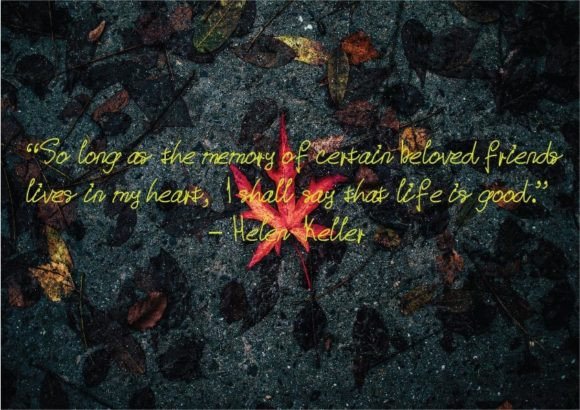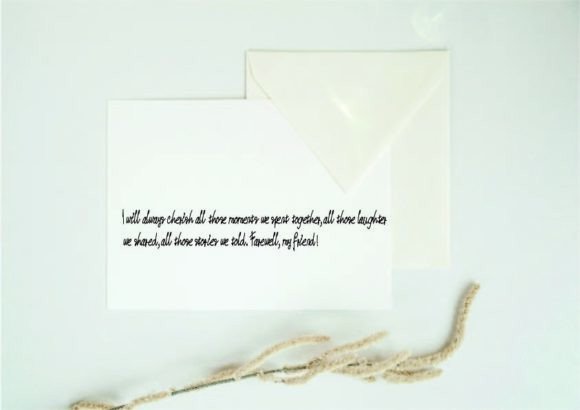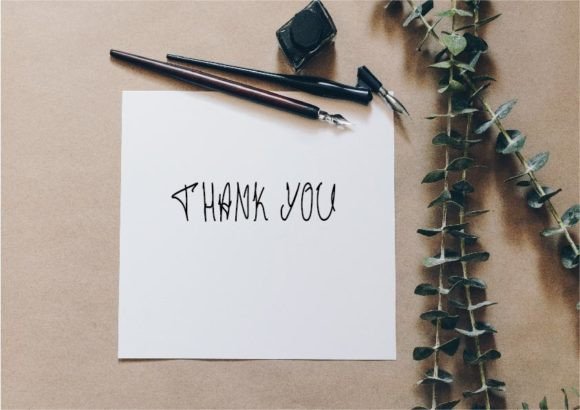
Adding Whimsy to Your Designs with Ambhoerhadhoel Font
Have you ever stared at a blank canvas, feeling stuck and uninspired? We’ve all been there – the creative block that threatens to derail our artistic momentum. But then, something magical happens. A spark of inspiration ignites, and the ideas start flowing. For designers, this moment is a thrill unlike any other.
Enter Ambhoerhadhoel Font, a quirky and fun handwritten font that’s guaranteed to add a dash of whimsy to your crafty ideas. With its playful, handwritten feel, Ambhoerhadhoel Font is the perfect tool for designers looking to inject some personality into their work. Whether you’re creating a brand identity, designing a wedding invitation, or crafting a social media post, Ambhoerhadhoel Font is the perfect addition to your creative toolkit.
Ambhoerhadhoel Font Key Features
- Font Family: Ambhoerhadhoel is a sans-serif font family, ideal for use in digital and print media.
- Size: The font family includes a range of font sizes, from 8pt to 72pt, with a comprehensive set of weights and styles.
- Resolution: Ambhoerhadhoel font family is optimized for use at high resolutions, making it suitable for use in digital displays and high-quality print materials.
- Unique Characteristics: The font family features a unique blend of modern and vintage elements, with distinctive letterforms and a subtle texture that adds depth and visual interest.
- Language Support: Ambhoerhadhoel font family supports a wide range of languages, including Latin, Cyrillic, and Greek scripts.
Ambhoerhadhoel Font Review
At first glance, the Ambhoerhadhoel Font seems like a fascinating and unique addition to any design project. I have to admit, I was immediately drawn to its ✨ eclectic, avant-garde style. The font’s bold and quirky characteristics make it perfect for creative projects that need a touch of edginess.
Here are some aspects that I particularly appreciate:
- ✨ The font’s versatility in handling a wide range of text sizes and styles.
- ✨ The unique letterforms that add a touch of sophistication and elegance.
- ✨ The excellent legibility, even at smaller font sizes.
- ⚠️ The font may not be suitable for formal or conservative designs, as it can come across as too bold or attention-seeking.
- ⚠️ The font’s irregularities can make it challenging to use in complex layouts or when precise alignment is required.
Overall, I think the Ambhoerhadhoel Font is a great choice for designers who want to add a touch of creativity and whimsy to their projects. While it may have some limitations, its unique style and versatility make it a valuable addition to any design library.
The Ambhoerhadhoel font is ideal for creative projects that require a unique and eye-catching font. Some common use cases include:
1. Social media graphics
2. Print materials (business cards, flyers, brochures)
3. Digital signage
4. Branding and identity materials
Alternatives to “Ambhoerhadhoel Font” for Designers
Circular Std
Circular Std is a modern sans-serif font designed for digital use. It is ideal for applications where a clean and neutral look is required. When to use: Digital interfaces, branding, and advertising materials.
Compared to Ambhoerhadhoel Font, Circular Std is more legible at small sizes and has a more neutral aesthetic, making it suitable for a wider range of design applications.
Lato is a sans-serif font designed for digital use. It is highly legible and versatile, making it suitable for various design applications. When to use: Digital interfaces, web design, and print materials.
Compared to Ambhoerhadhoel Font, Lato is more readable at small sizes and has a more modern aesthetic, making it a popular choice for digital design projects.